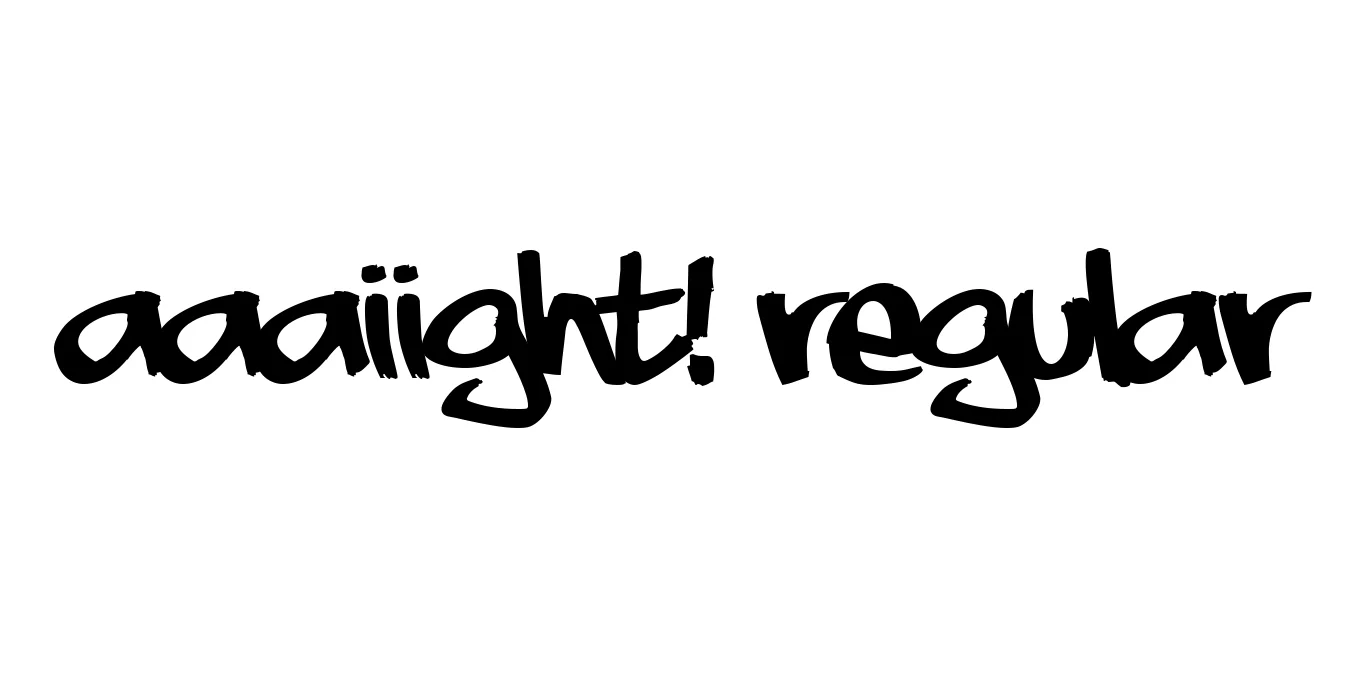
aaaiight! Regular
Designed by Ray Larabie
| Category | Graffiti / Display |
| Designer | Ray Larabie |
aaaiight! Regular is a high-energy display font designed by the prolific typographer Ray Larabie of Typodermic Fonts. Drawing inspiration from street art and urban graffiti culture, this typeface captures the fluid motion of a quick-dry marker on a concrete wall. Its irregular weight and expressive strokes give it an authentic, hand-drawn feel that resonates with youth culture and rebellious design aesthetics.
Released as part of Larabie's extensive collection of experimental typefaces, aaaiight! has become a favorite for projects requiring a sense of urgency and raw emotion. The font's character set includes a variety of symbols and punctuation that maintain the gritty, lo-fi aesthetic, making it an excellent choice for album covers, skate shop branding, and modern street apparel graphics.
aaaiight! Regular Best Uses
Ideal for logos on hoodies, caps, and skateboard decks.
Perfect for underground music gigs, hip-hop battles, and urban festivals.
Adds a bold, hand-lettered touch to high-impact digital content.
Great for hip-hop, punk, or alternative music cover designs.